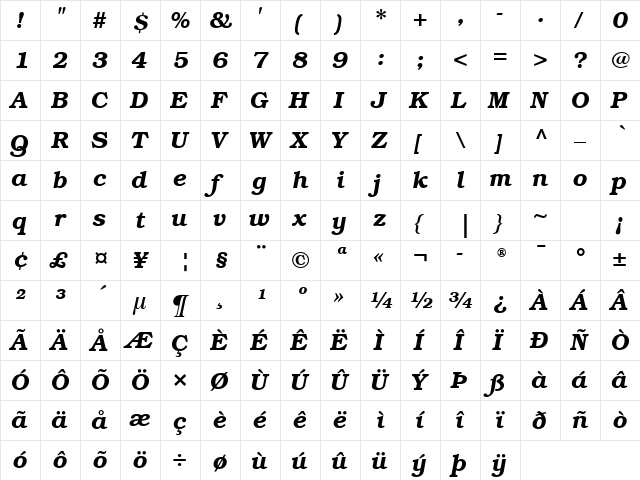
Bookman S Demi Italic Font Preview
Bookman S Demi Italic
Bookman S Demi Italic Font Details
| Style | Demi Italic |
Design Context for Bookman S Typeface
Bookman S offers clean, dependable letterforms without strong stylistic allegiance, making it a practical choice for designers who need flexibility. Its italic angle brings a sense of urgency and motion to the letterforms.
Pro Tip: Try Bookman S for annotation and caption copy alongside an upright companion — the contrast in angle creates a dynamic but ordered typographic system.